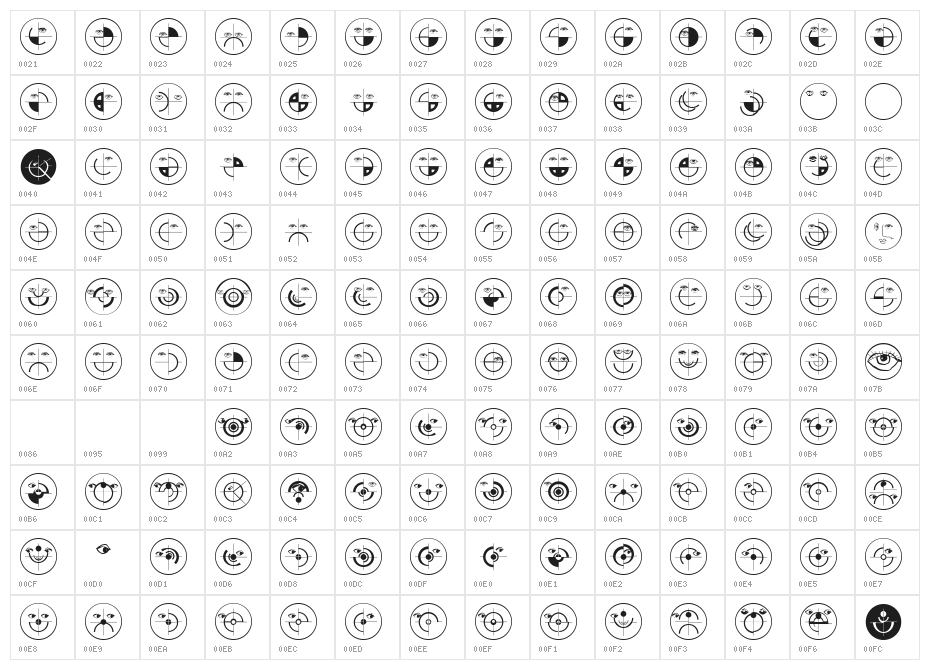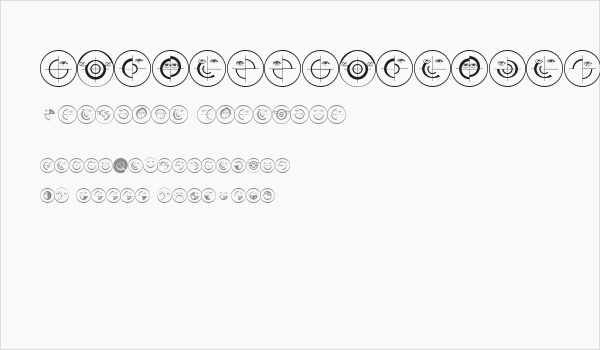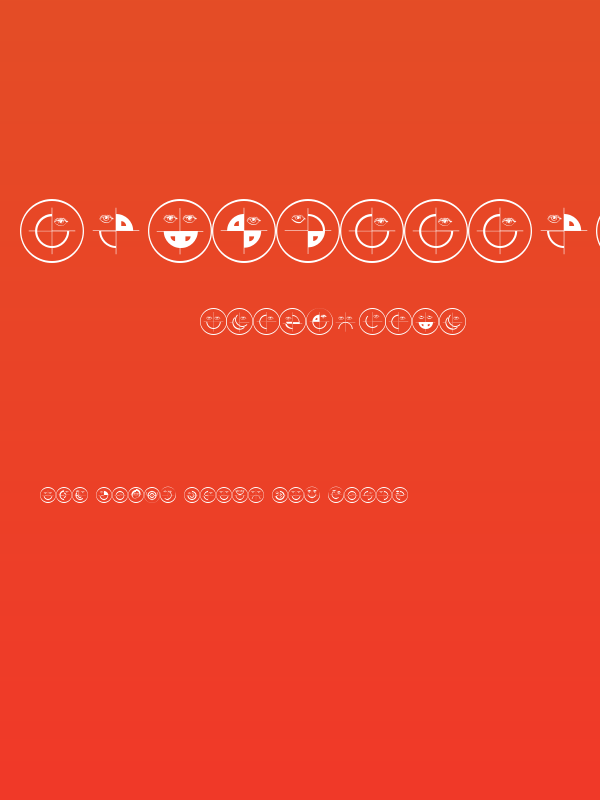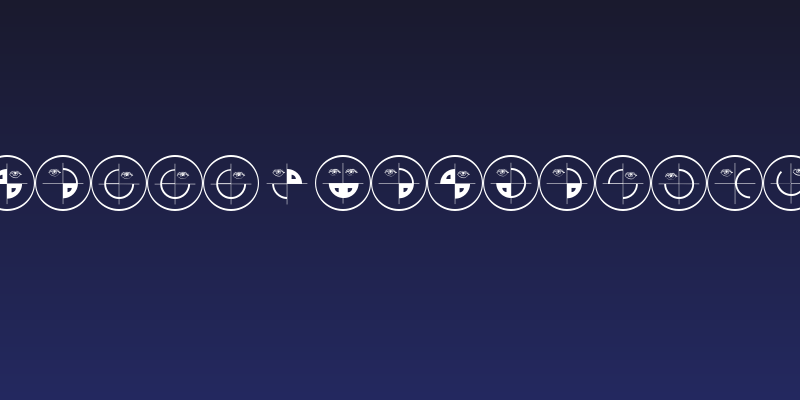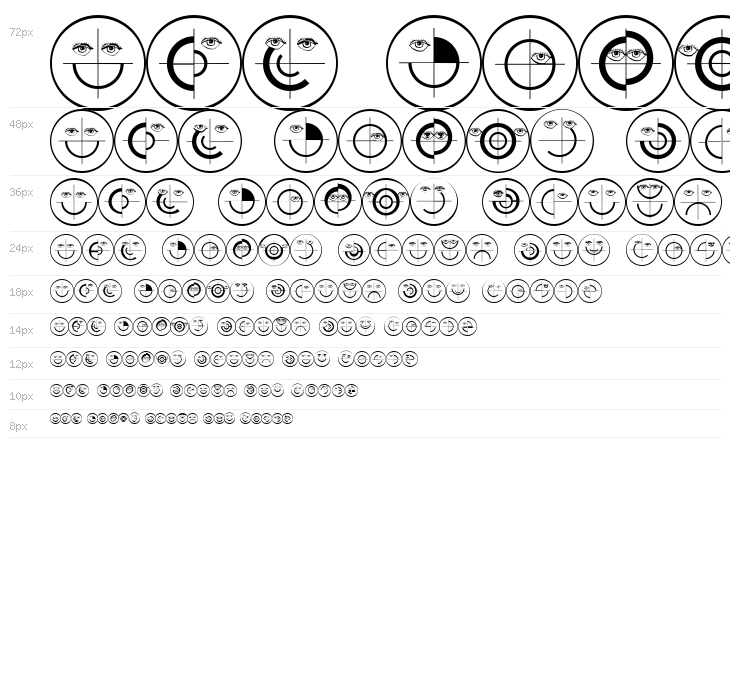
SchiessScheibeUndAuge Font
SchiessScheibeUndAuge Description
This is not a valid font. The image contains a series of circular designs with abstract shapes and patterns, resembling a combination of targets and eyes. Each circle contains unique geometric elements, creating a visually intriguing pattern. The designs are consistent in their circular form but vary in internal composition, suggesting a focus on artistic expression rather than typographic function.
| Overall Style | Abstract, Artistic |
| Use Case | Art projects, Logos, Decorative elements |
| Proposed Projects | These designs could be used for artistic projects, logo creation, or decorative elements in graphic design. |